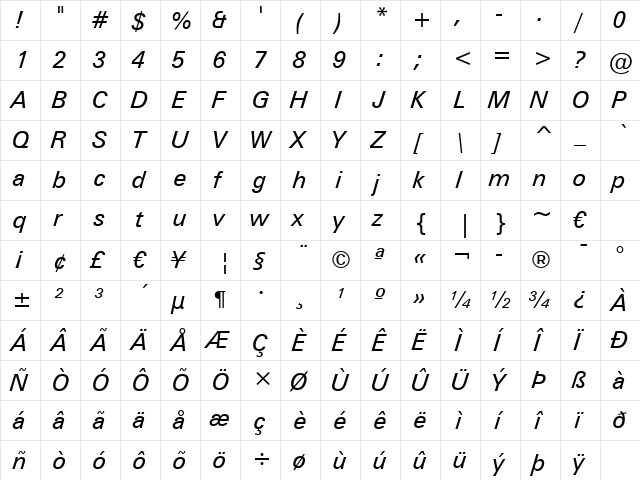
Zurich BT Italic
Design Context for Zurich BT Typeface
Zurich BT is a composed and adaptable typeface that performs quietly and consistently across a wide range of design contexts. The slanted form adds forward momentum and visual energy.
Pro Tip: Try Zurich BT for annotation and caption copy alongside an upright companion — the contrast in angle creates a dynamic but ordered typographic system.